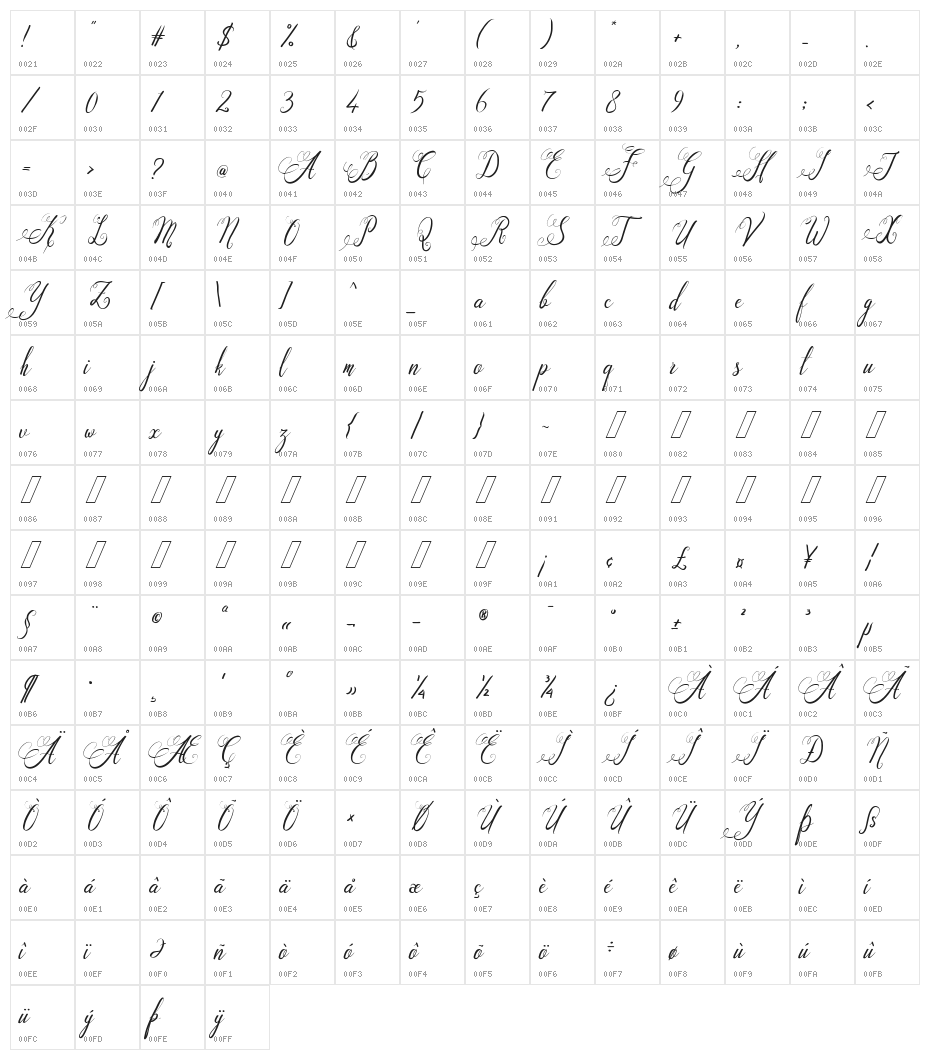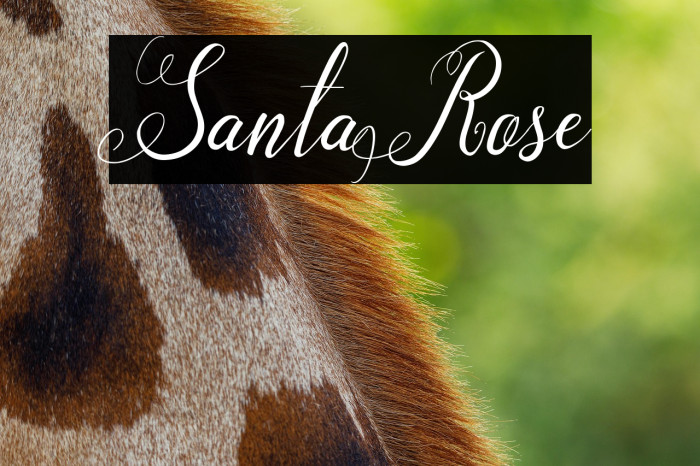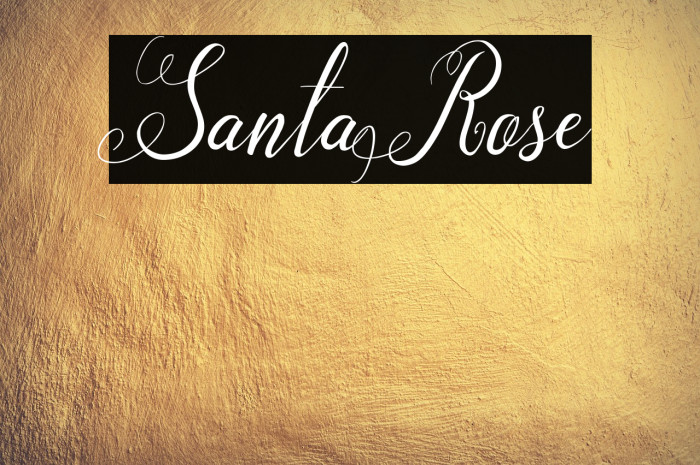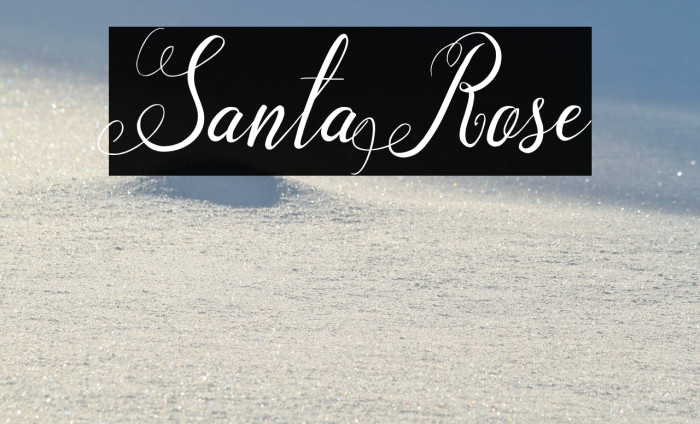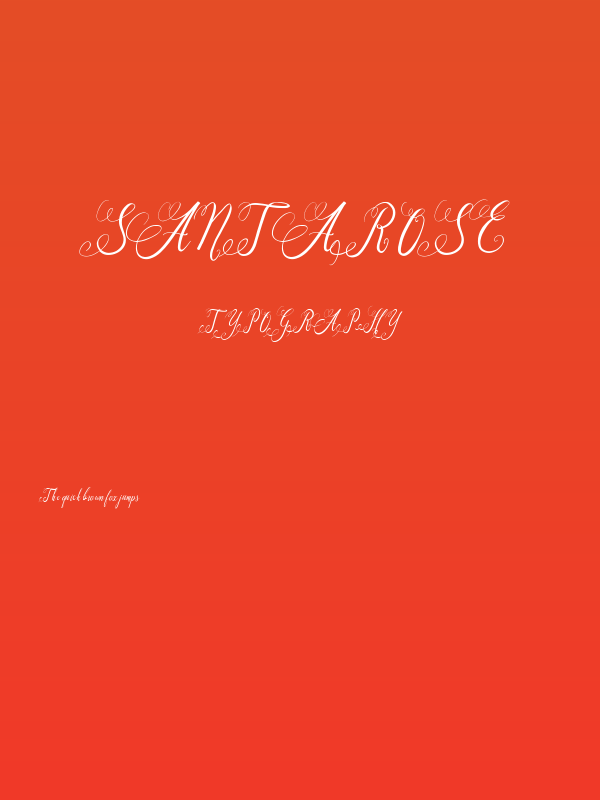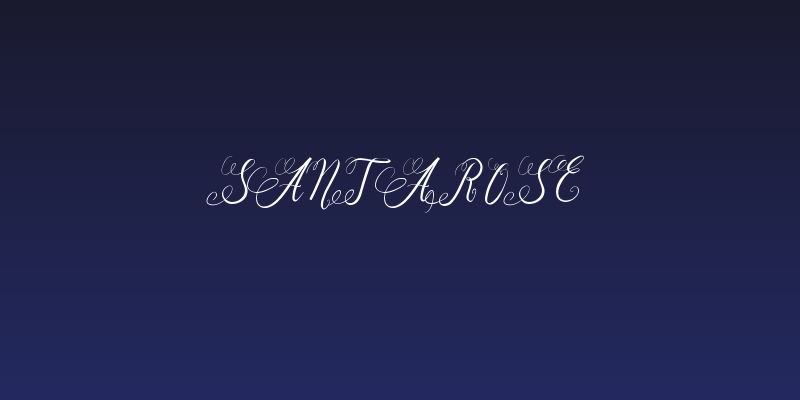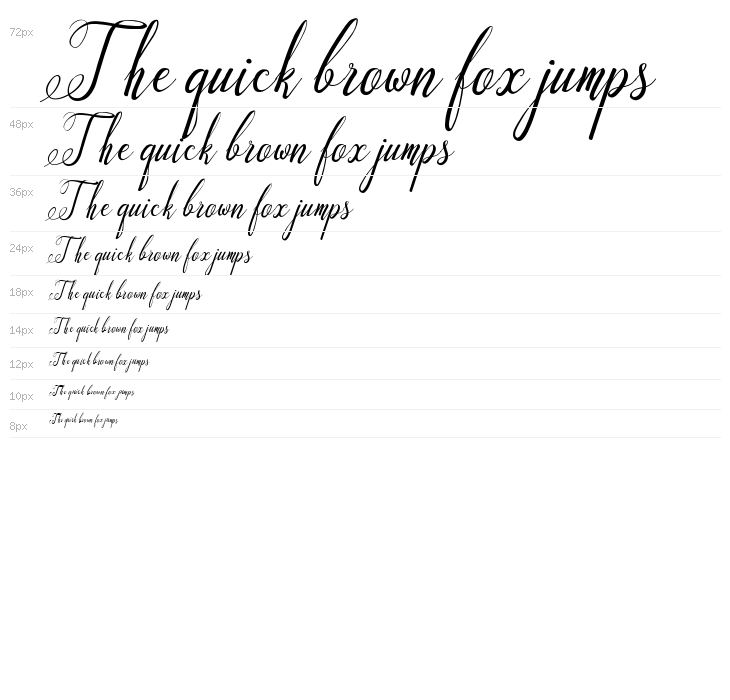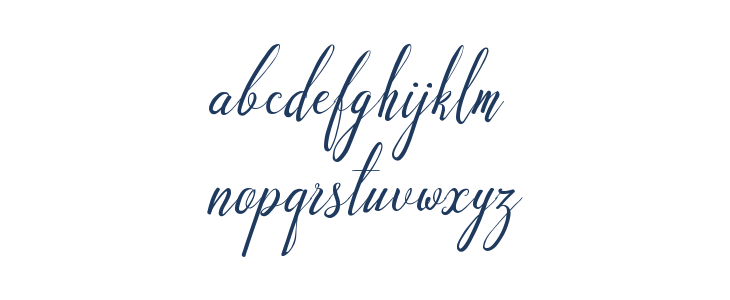
SantaRose Font
SantaRose Description
This elegant script font features flowing, interconnected letters with elaborate swashes and flourishes. The uppercase characters are particularly ornate, with extended loops and curves that give a sense of sophistication and grace. The lowercase letters maintain a consistent style, with smooth, flowing lines that enhance readability while retaining a decorative flair. The numerals and special characters are designed to complement the overall aesthetic, maintaining the same level of intricacy and elegance. This font is ideal for projects that require a touch of luxury and refinement.
| Overall Style | Elegant |
| Use Case | Logos, Invitations, Decorative text |
| Proposed Projects | Wedding invitations, luxury branding, elegant stationery, and high-end product packaging. |